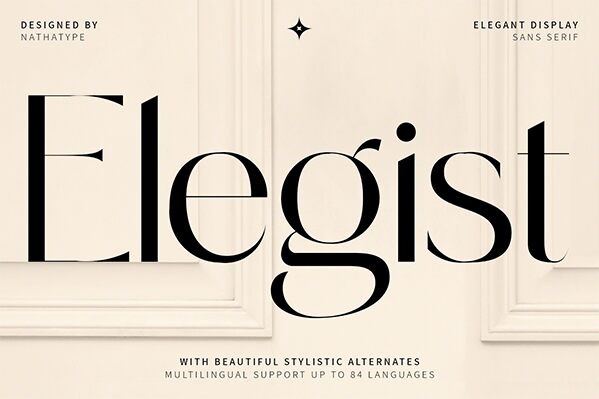
Elegist, crafted by the renowned Din Studio, is a refined sans serif font that exudes sophistication and elegance. With its semi-light weight, this versatile typeface is perfect for projects requiring a touch of subtlety and grace.
Its clean lines and balanced proportions make it suitable for a wide range of creative ventures. From modern corporate branding to high-end fashion editorials, Elegist effortlessly adds a touch of class to any design. Whether it's an exquisite logo or an eye-catching website, this font is guaranteed to leave a lasting impression.